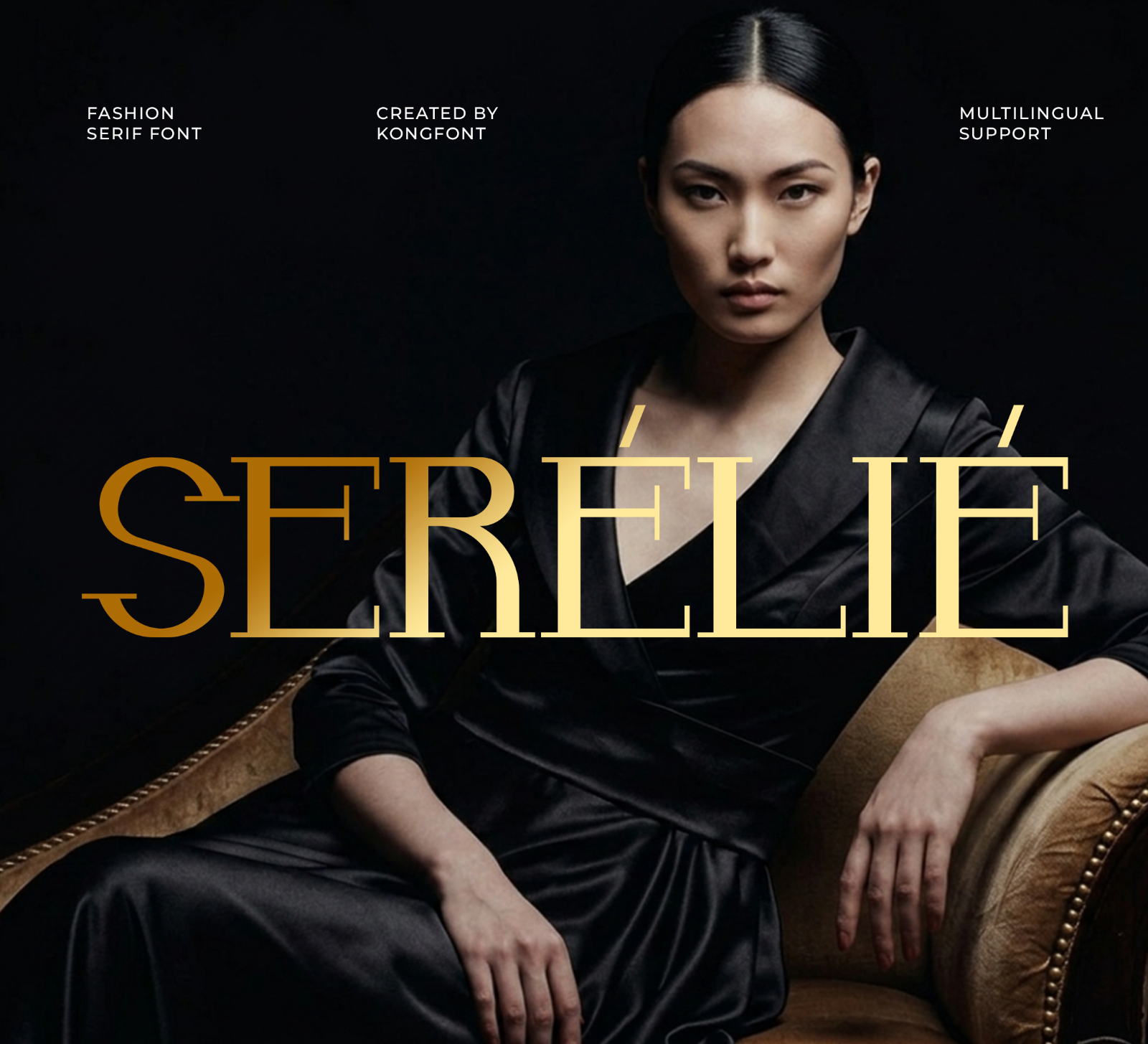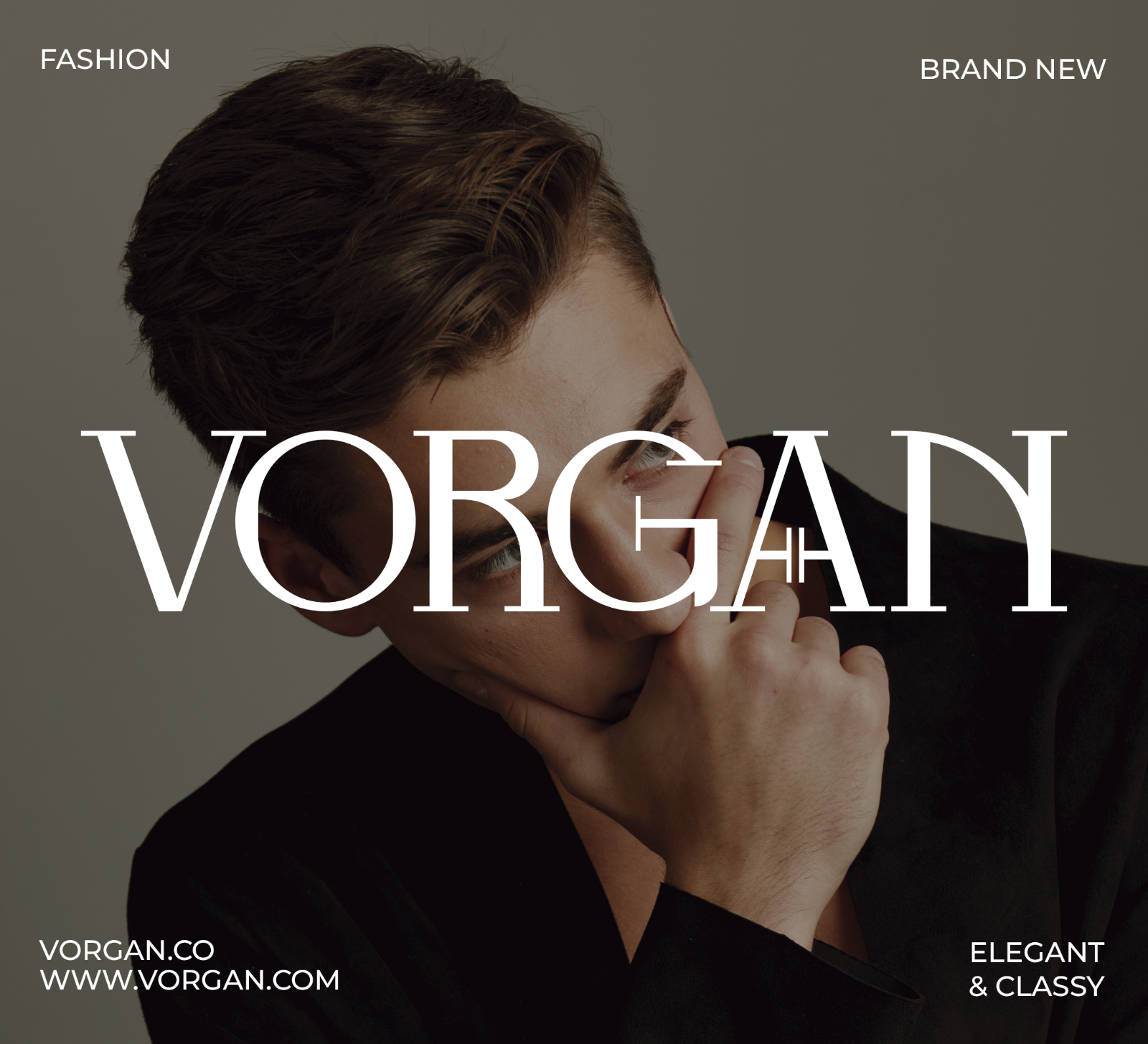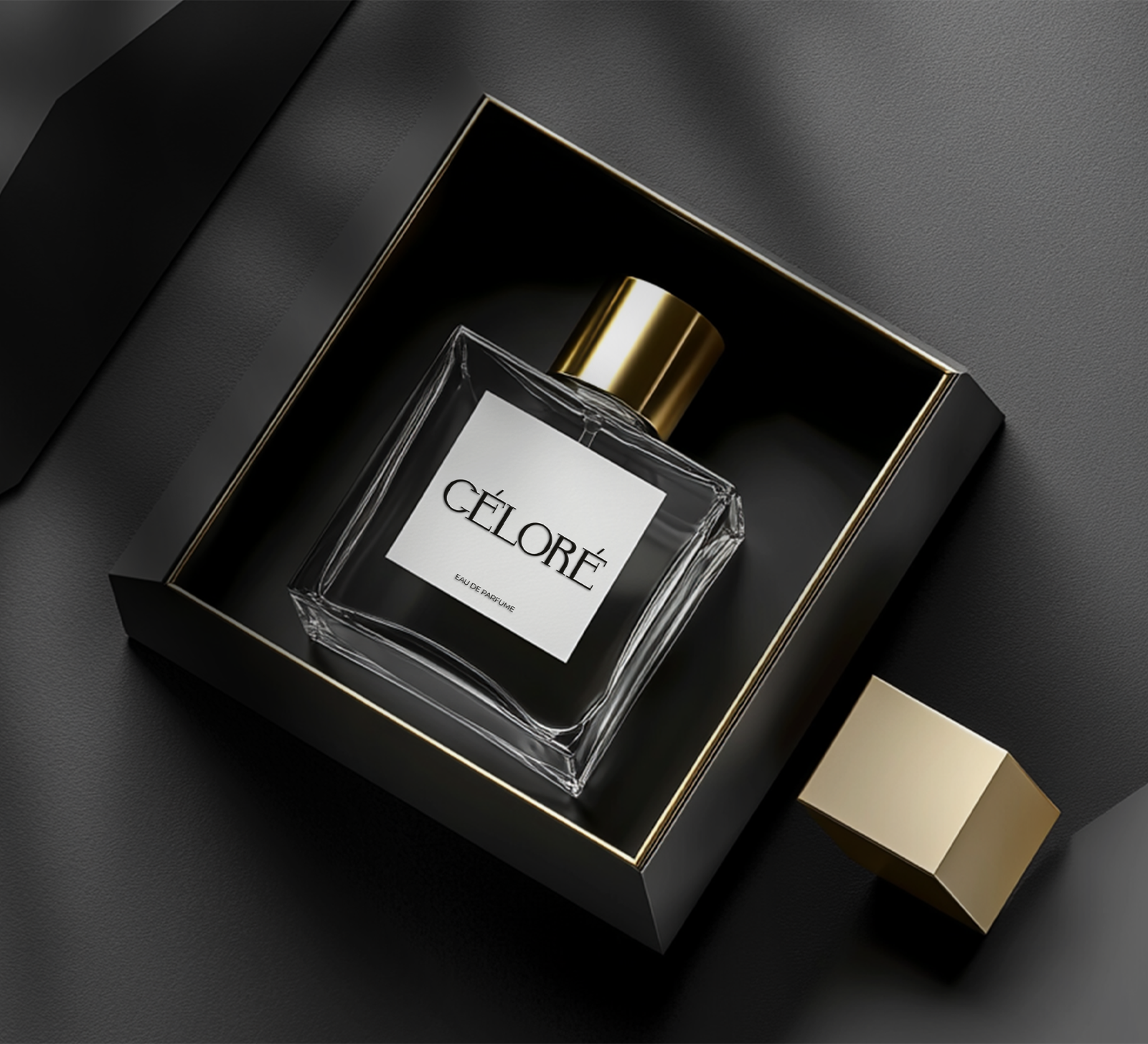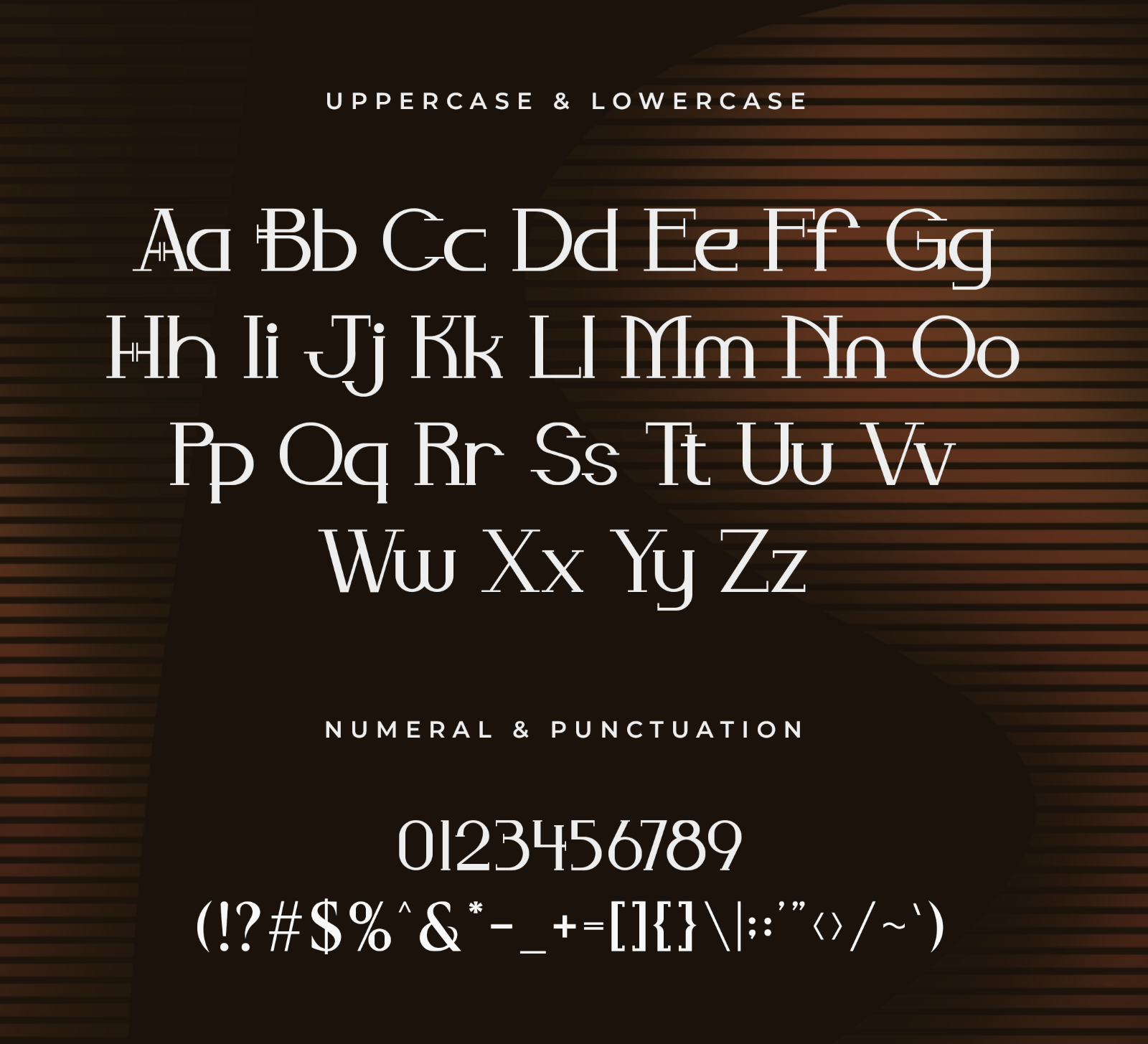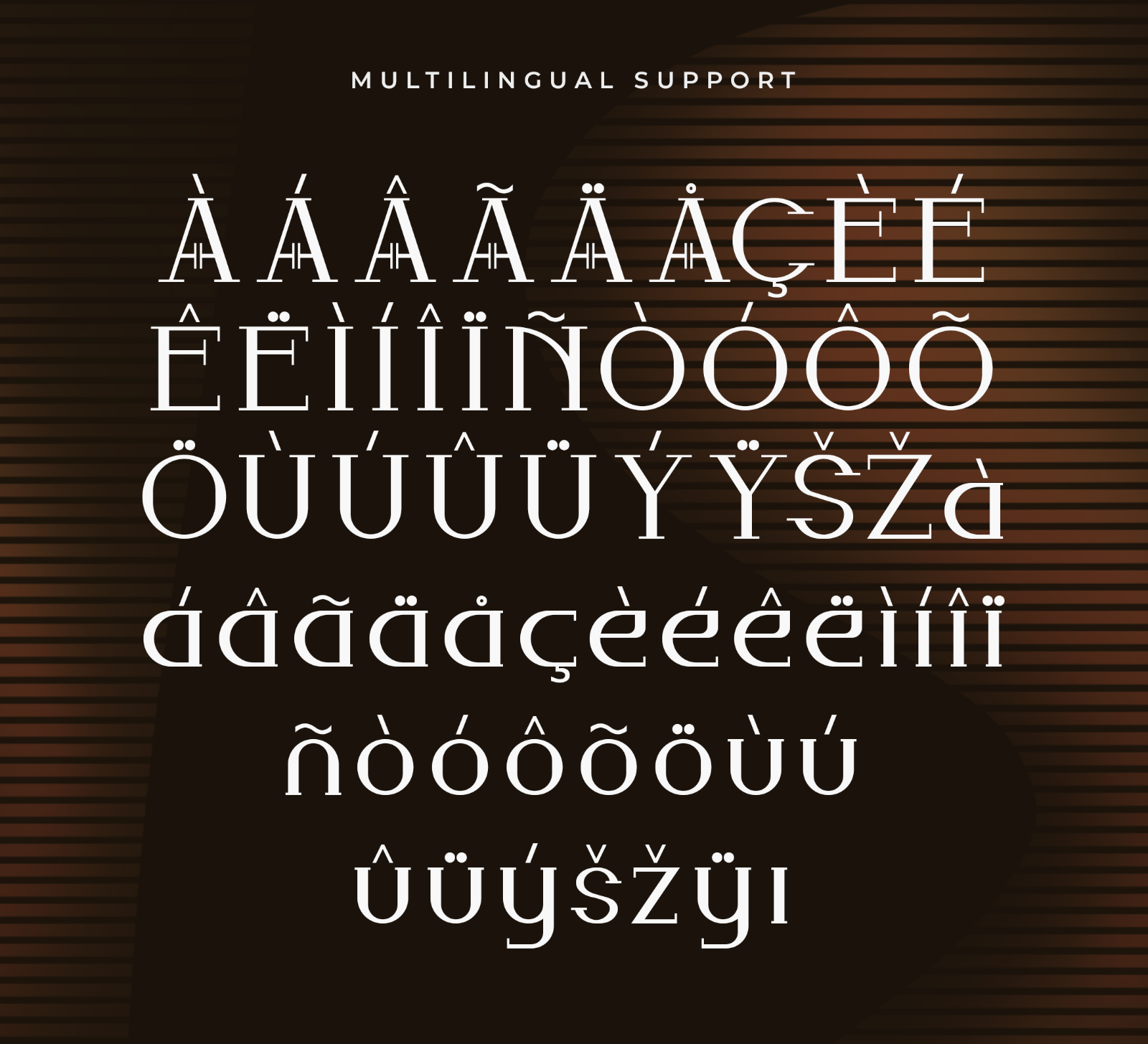
Serelie is a modern serif font with bold letterforms, elegant curves, and a clean contemporary style. Its distinctive shapes create a refined and stylish appearance that works beautifully for eye-catching display designs.
• Branding
• Logos
• Business cards
• Blog headers
• Quotes
• Editorial titles
• Packaging
• Creative typography